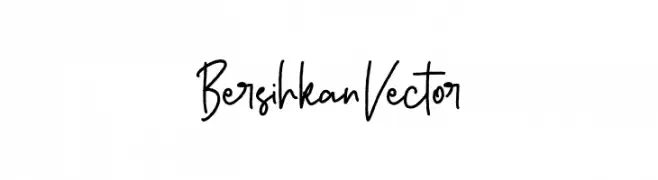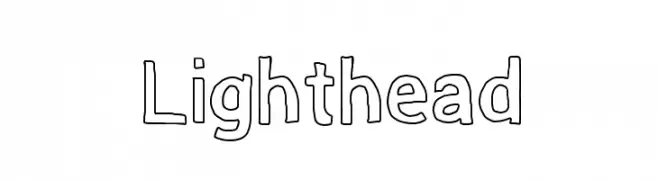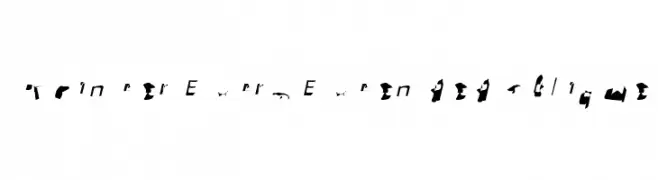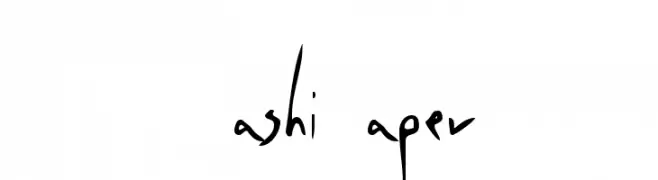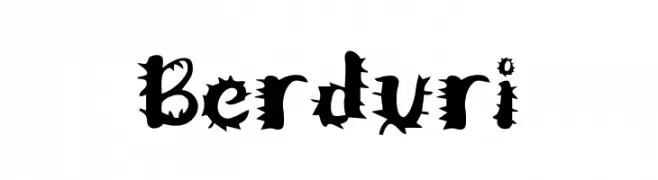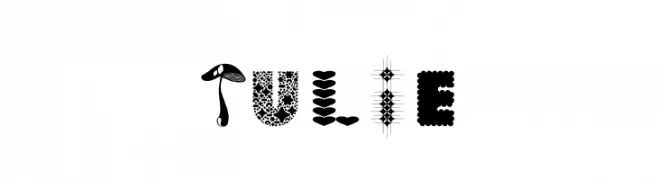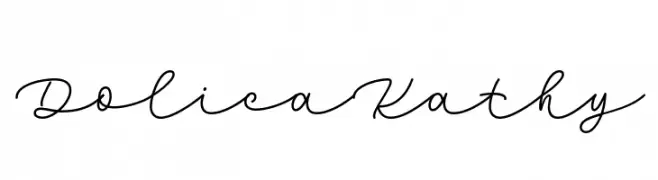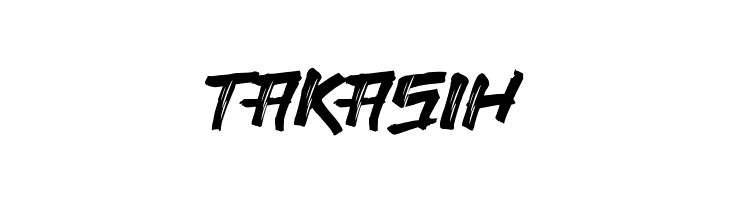
A bold, italicized font with a futuristic and angular design.
A lively, handwritten font with playful and irregular strokes.
A playful, bold outline font with rounded edges and consistent strokes.
A bold, geometric font with a futuristic and modular design.
A modern, hand-drawn calligraphic font with dynamic, fluid strokes.
A bold, thorny font with a dramatic and edgy style.
A diverse and artistic font with unique, playful characters.
A graceful and elegant script font with flowing, connected characters.
A flowing, cursive script font with elegant, interconnected strokes.